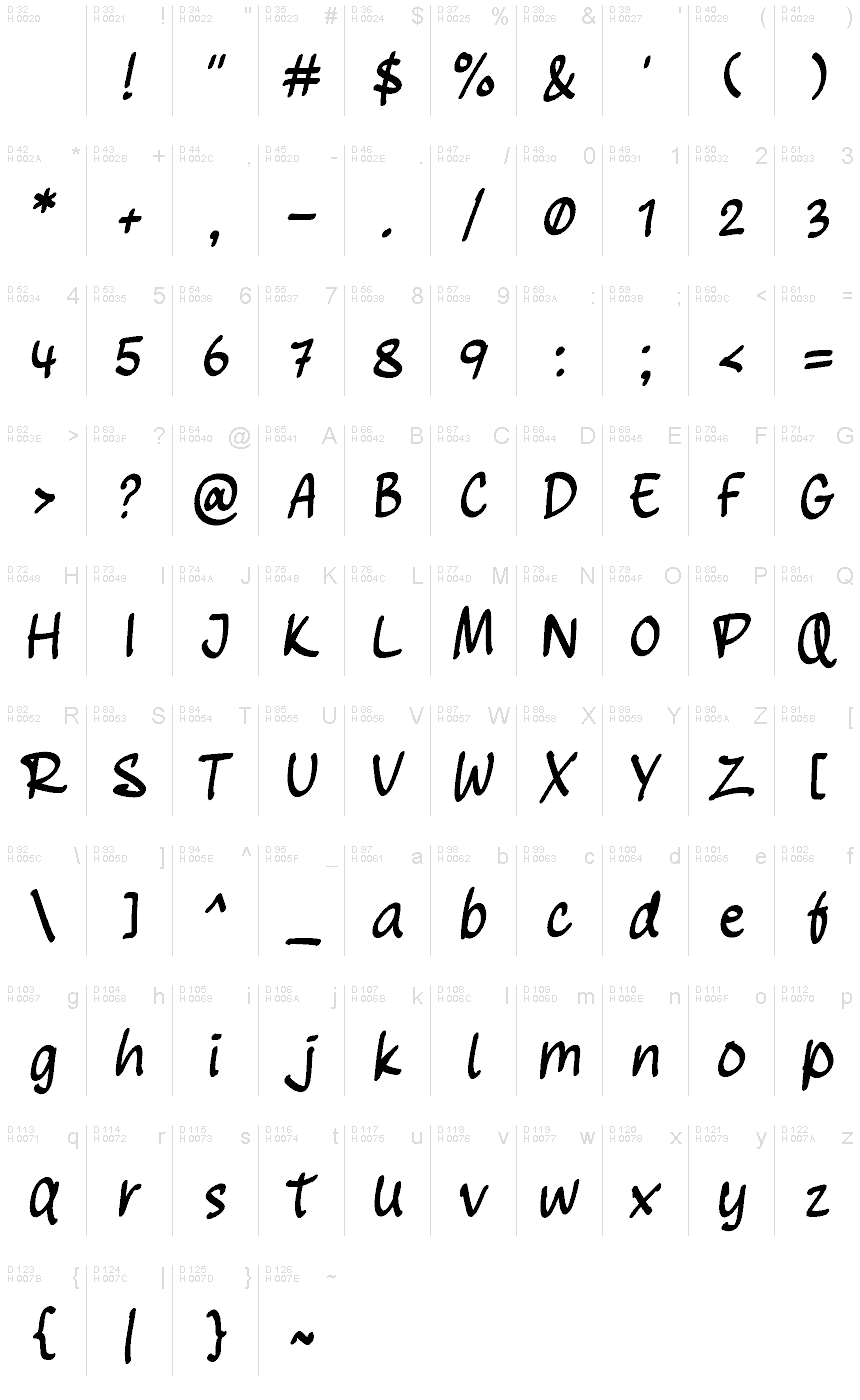
Note Marker
Note Marker font is designed by Excellent Ritma Florendia. It is the first of many handwritten tools which includes casual notes, to be used in social media texts, invitations designs and digital branding and personal branding as well.
The font was designed inspired by marker pens that give it an unfinished feeling. With rough edges and sharp corners, Note Marker can be used in an attractive and casual branding, fashion titles, packaging, digital design, and for different handwritten text presentations.